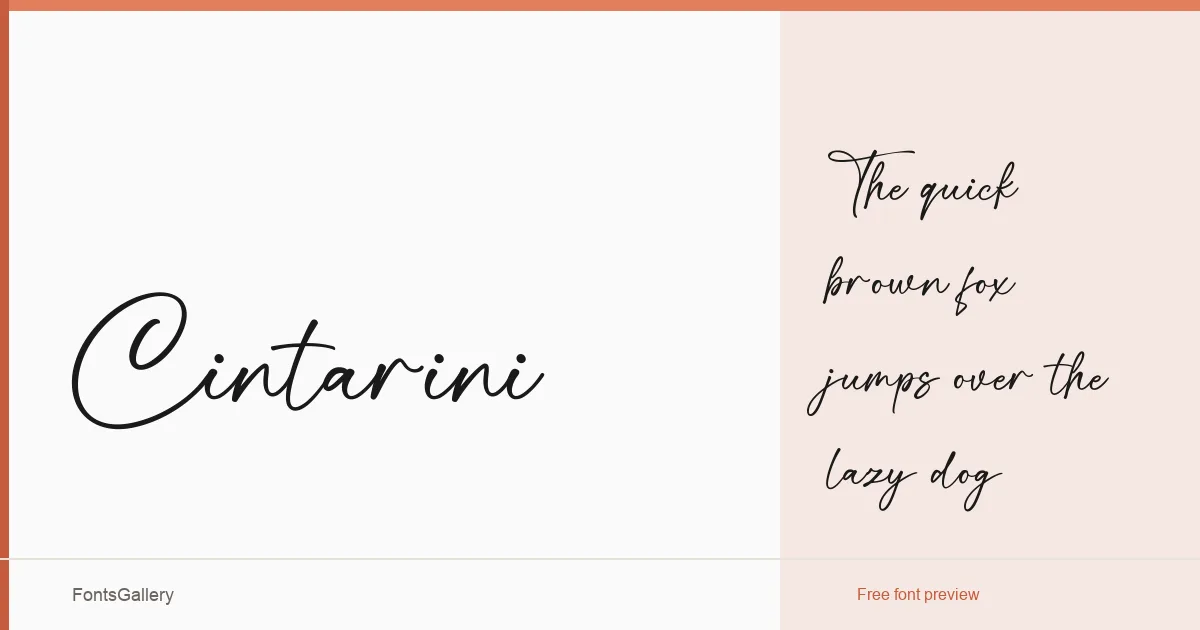
About Cintarini Font
Cintarini is a script typeface crafted by Bery Arisandi and Basnistudio, designed to evoke elegance, romance, and timeless classic charm. This beautifully flowing script brings a refined sensibility to any project that calls for a sophisticated, heartfelt touch. It reflects the creative vision of Basnistudio and Bery Arisandi, making it a distinctive addition to any designer's typographic collection.
Cintarini features gracefully flowing letterforms characteristic of an elegant script, with fluid strokes and organic connections that exude a romantic, classic quality. Each character is thoughtfully shaped to maintain a sense of harmony and sophistication throughout a composition. The typeface strikes a delicate balance between ornate expressiveness and refined legibility, making it both visually captivating and practical.
Cintarini is ideally suited for logos, wedding materials, invitation cards, branding projects, and greeting cards where an elegant and romantic aesthetic is desired. Its flowing script style makes it particularly compelling for luxury and lifestyle branding, as well as celebratory stationery. For a harmonious typographic pairing, Cintarini works beautifully alongside Aresink for a consistent script feel, or paired with the clean neutrality of Helvetica to create a striking contrast.